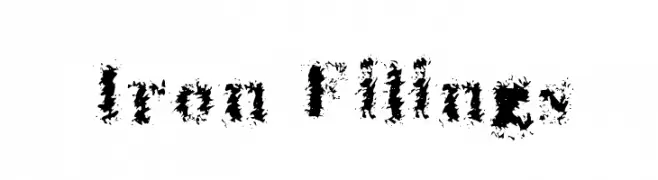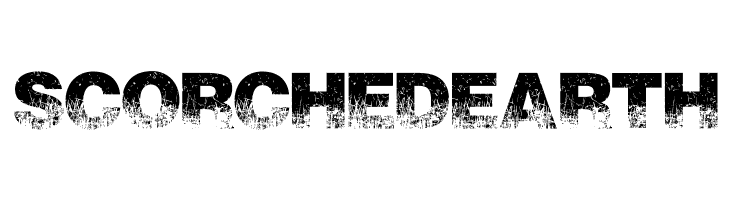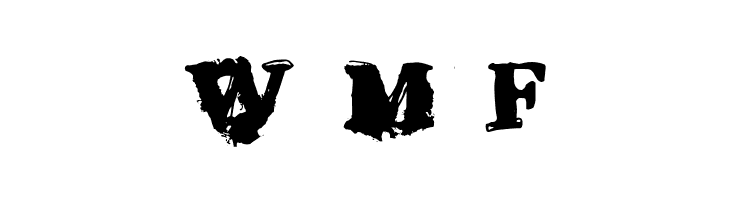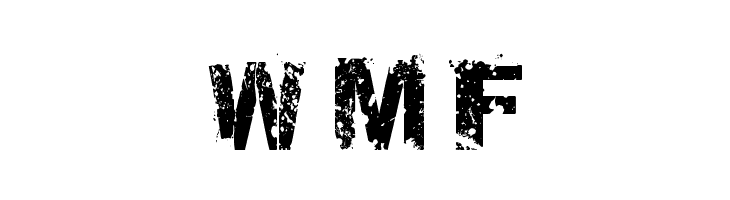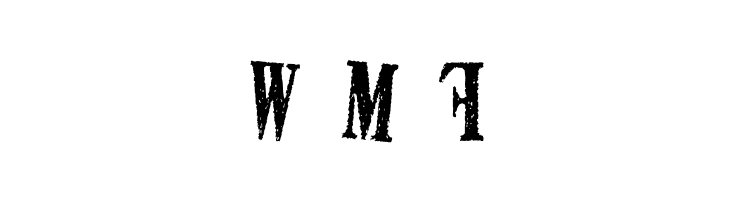
A bold, distressed font with a vintage, grunge texture.
A distressed, grunge-style sans-serif font with skull overlays.
A bold, distressed font with a vintage, handcrafted look.
A bold, distressed font with a grunge aesthetic and textured appearance.
A bold, distressed sans-serif font with a grunge texture.
A bold, distressed font with jagged edges and a rugged texture.
A bold, distressed font with a rugged, edgy appearance.
A bold, distressed font with a grunge aesthetic and rugged texture.
A bold, distressed font with a grunge, textured style.
A bold, distressed slab serif font with a grunge texture.
A bold, cracked font with a distressed and edgy appearance.
A bold, distressed font with a rugged, industrial style.
A bold, distressed font with irregular, fragmented letterforms.
A bold, textured font with a rugged, distressed appearance.
A bold, distressed font with a rugged, industrial style.
A bold, distressed font with a vintage, textured style.